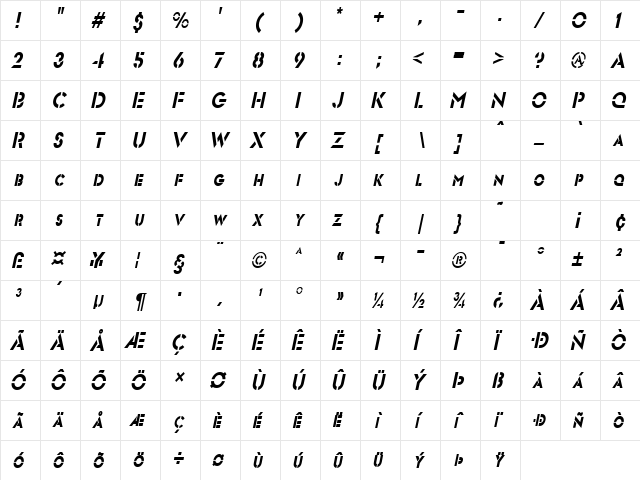
Templett S Condensed Italic
Design Context for Templett S Condensed Typeface
Templett S Condensed takes a measured approach to typography — its balanced proportions and neutral character make it a reliable workhorse for both digital and print work. The dynamic lean of this cut emphasises speed and emphasis in any layout. The condensed width makes it efficient for tight spaces without sacrificing legibility.
Pro Tip: Try Templett S Condensed for annotation and caption copy alongside an upright companion — the contrast in angle creates a dynamic but ordered typographic system.